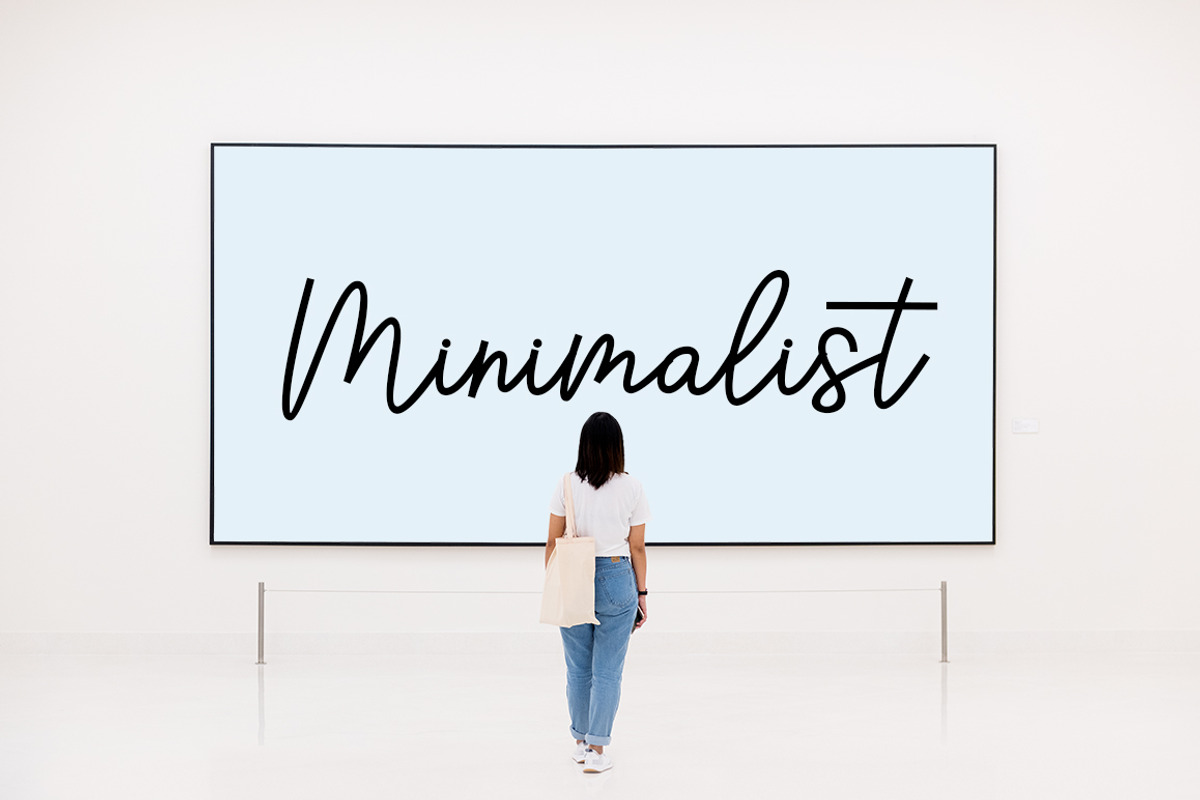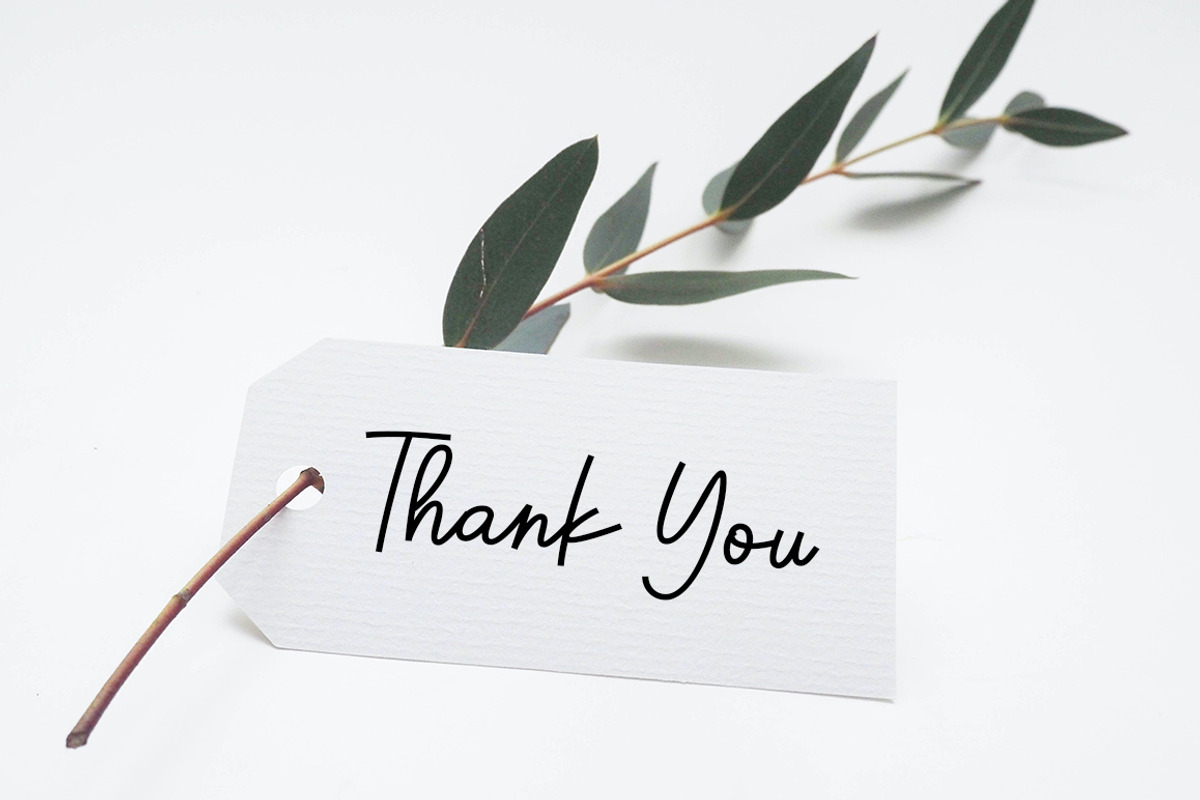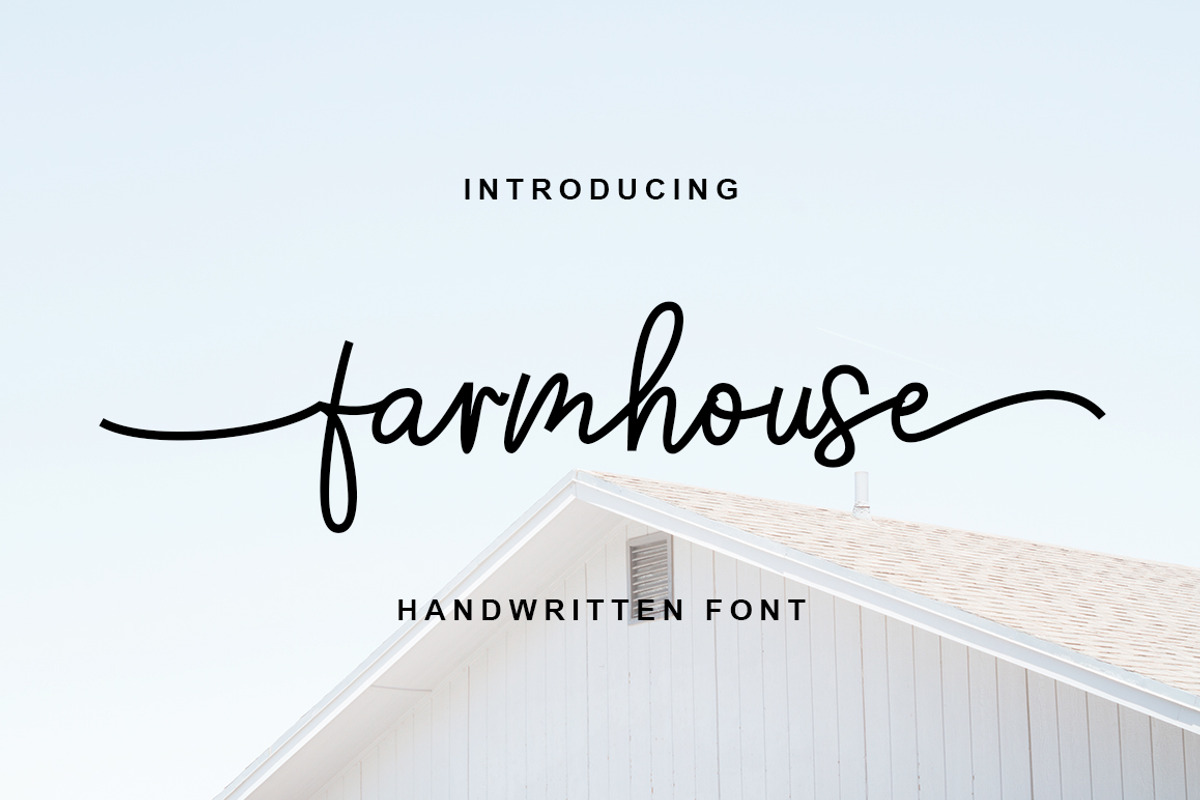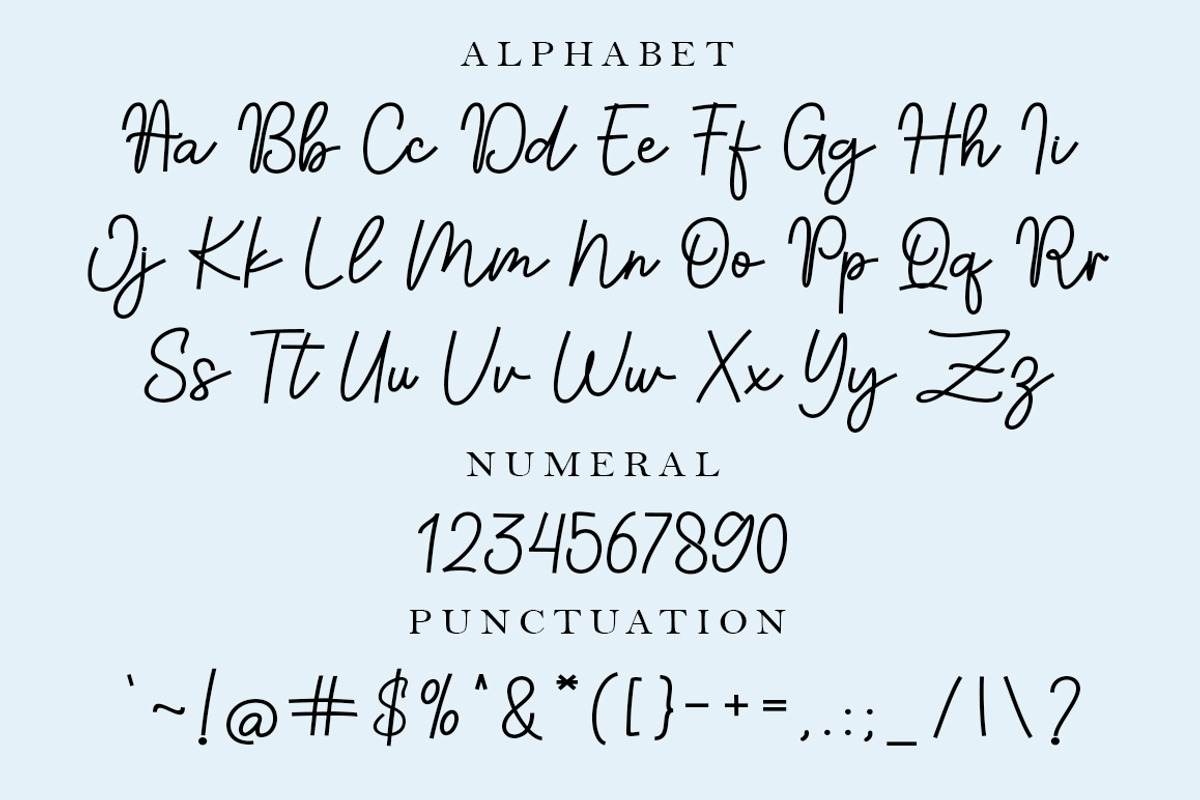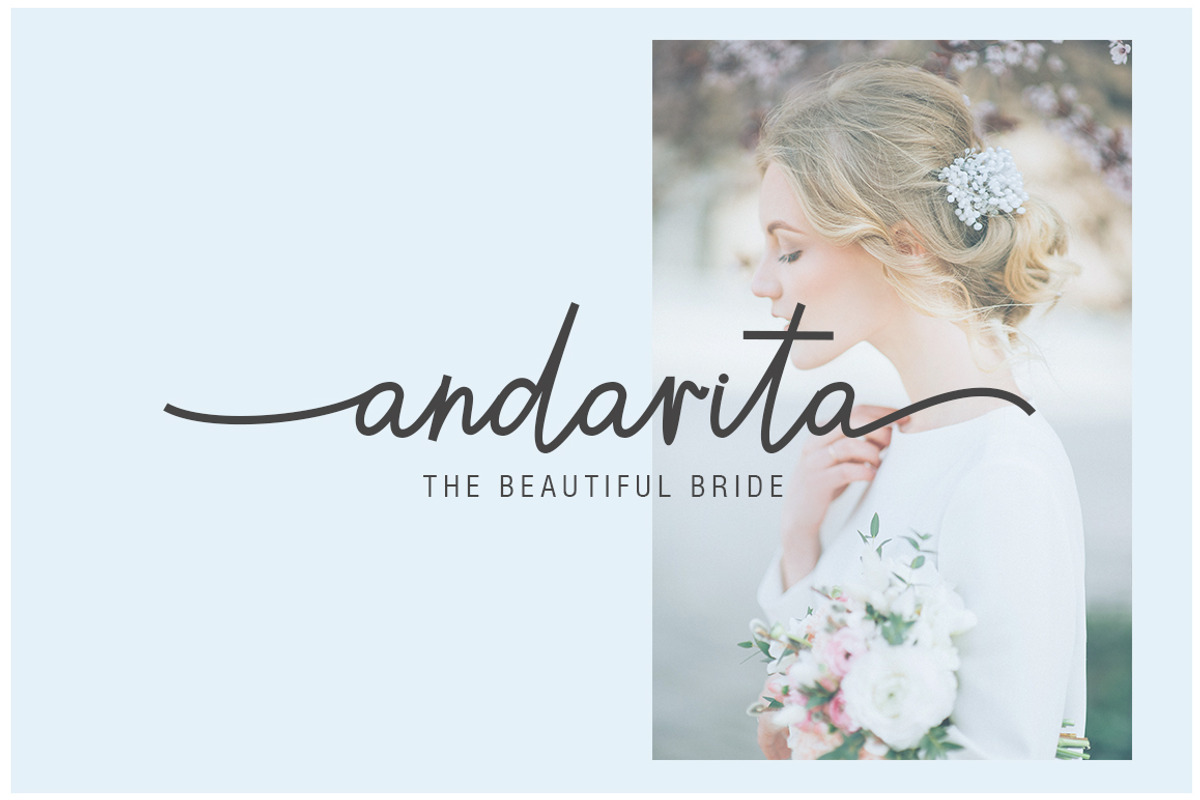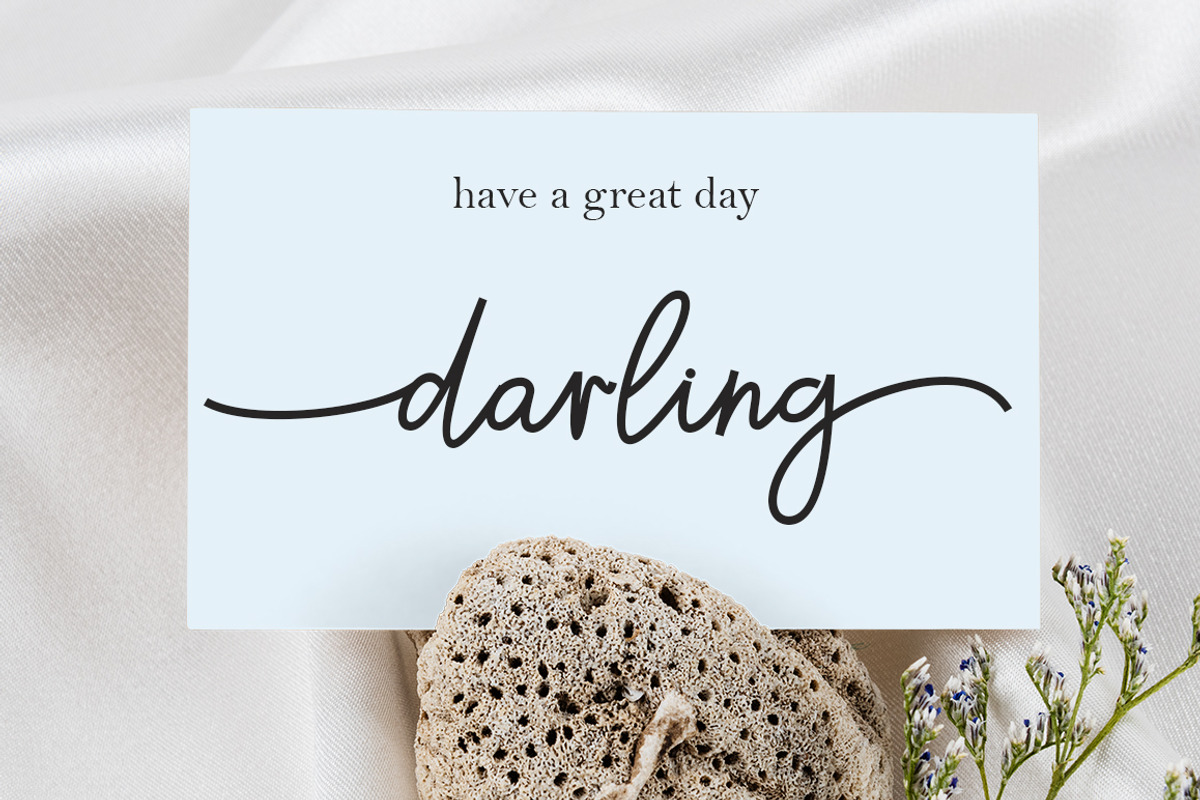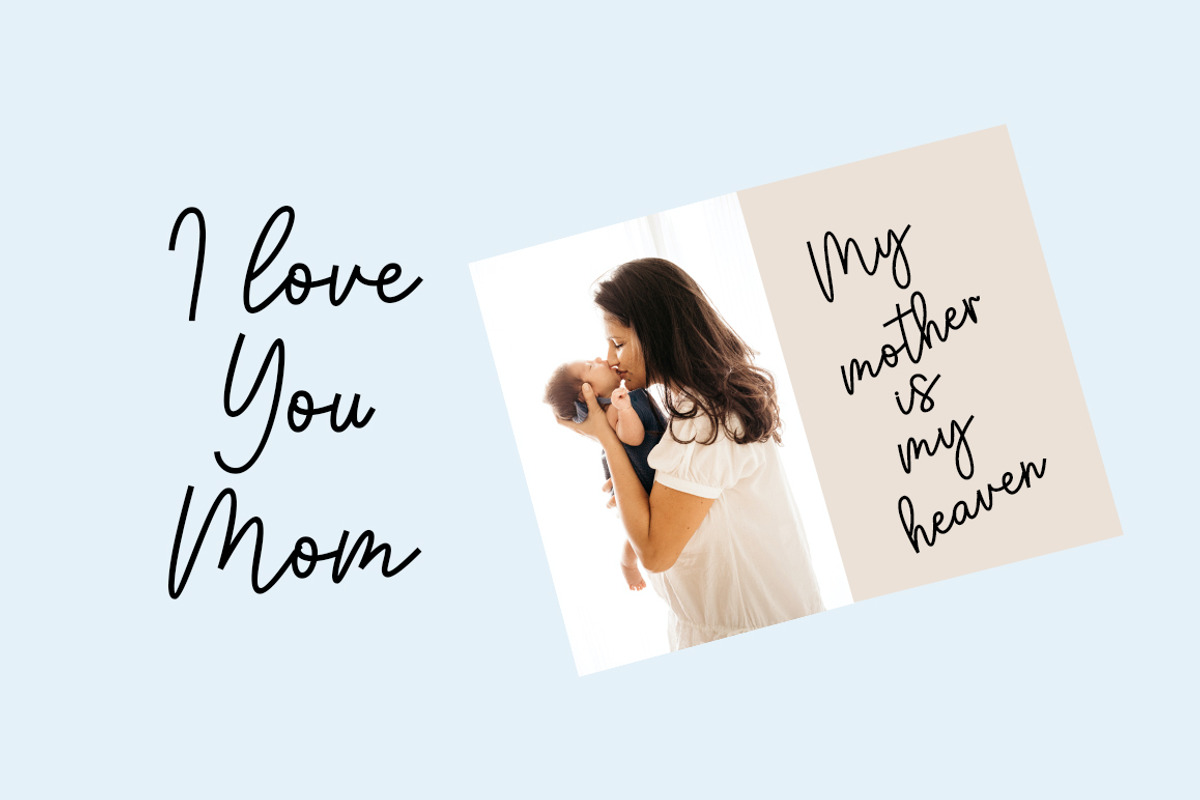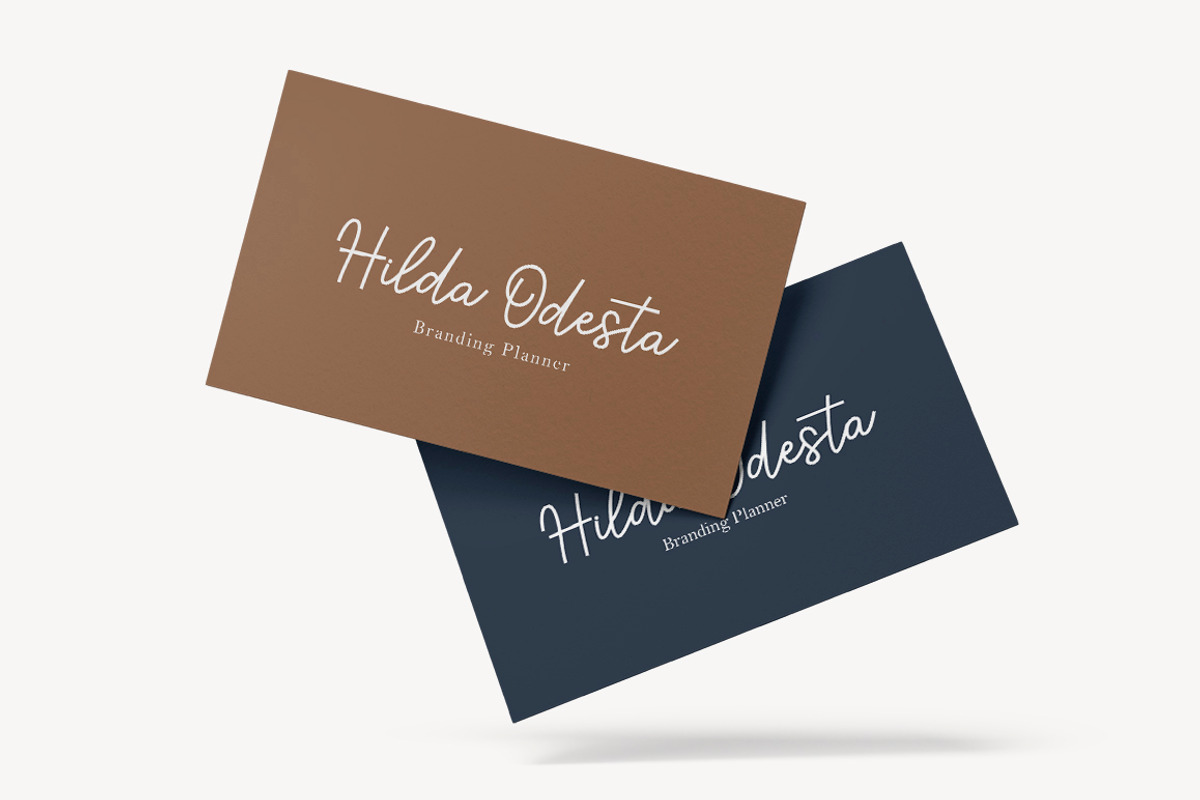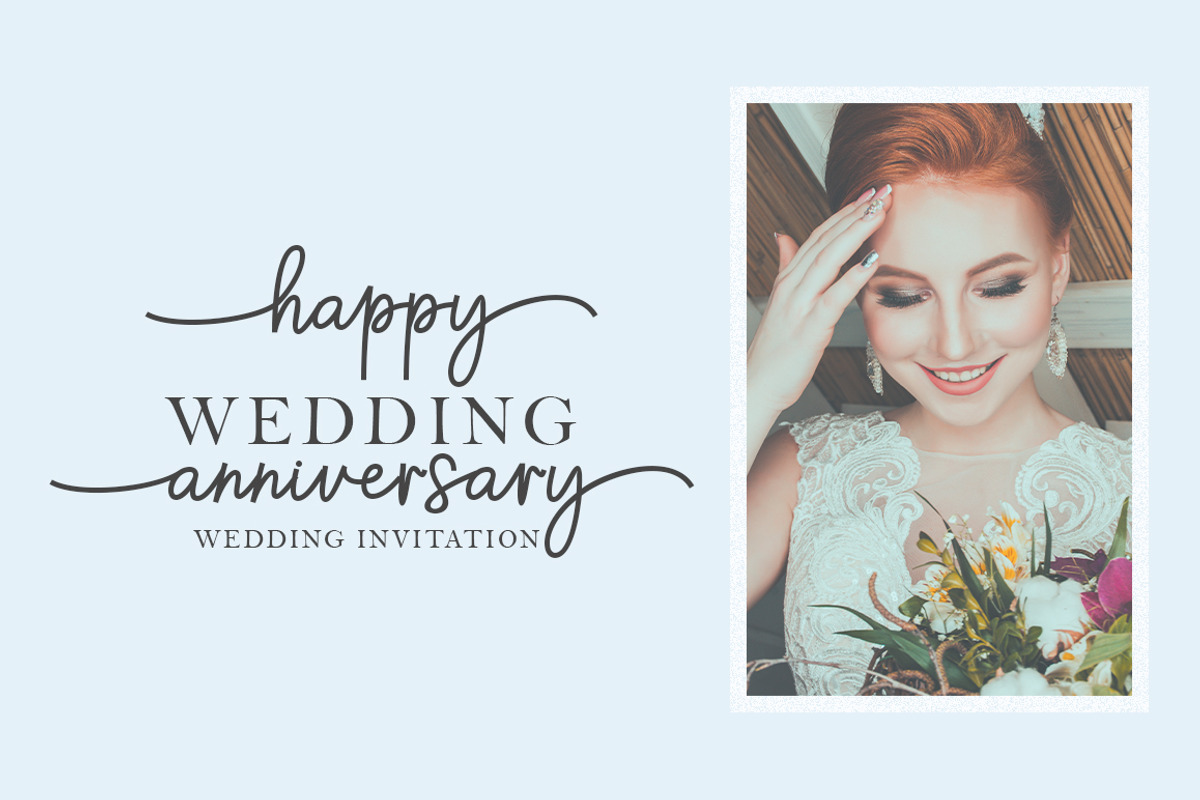
farmhouse
Framhouse is an authentic handwritten font with a romantic touch. Expertly designed to be a true favourite, this font has the potential to take your creative ideas to the highest level
This font is legible and looks great as a title or body text. This font would be perfect for many different designs for magazine headlines, social media, branding, wedding invitations, cards, etc. Fonts.
Framhouse includes ligatures, capital letters, and alternate letters. You need a program that supports OpenType features such as Adobe Illustrator CS, Adobe Photoshop CC, Adobe Indesign and Corel Draw X6/X7. and you can also access alternative glyphs via Font Book (Mac users) or Windows Character Map (Windows users).